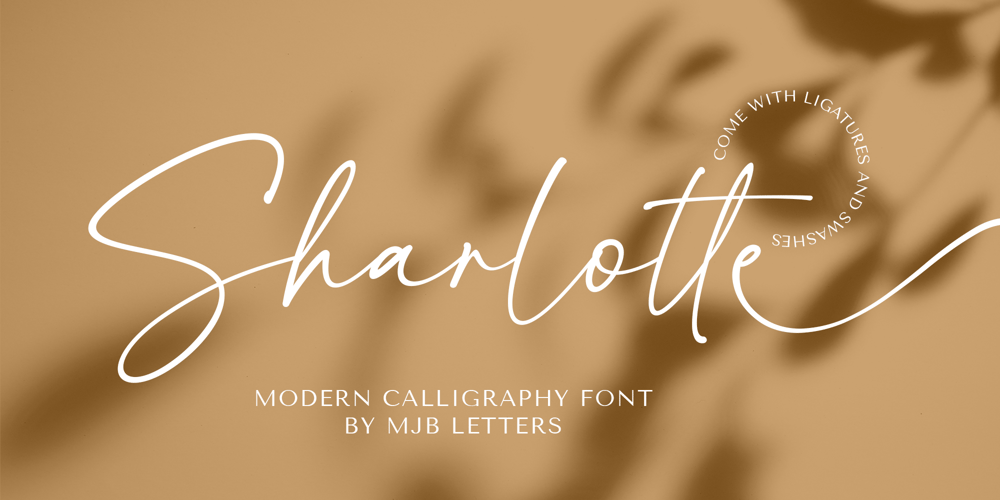
Sharlotte
Sharlotte font
Sharlotte Font Family was designed by Muhammad Mujibulloh and published by MJB Letters. Sharlotte contains 1 styles and family package options. Sharlotte is a modern calligraphy that has a natural handwritten touch, this font has a strong character in each glyph and is very suitable for branding design, logo design, packaging design, wedding invitation design, poster design, business card design, and anything that needs a handwritten look.Files Included:- Works on PC & Mac- Simple installations- Accessible in Adobe Illustrator, Adobe Photoshop, Adobe InDesign, and even work on Microsoft Word.- PUA Encoded Characters – Fully accessible without additional design softwareIf there’s anything else you are unsure of feel free to pop me a message :)That’s it! Have fun using Sharlotte Font!